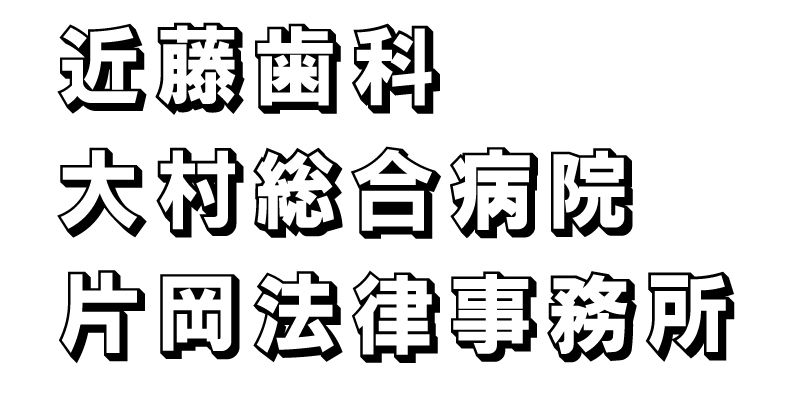
TA Kaku Shadow Font Free Download is a bold, dynamic display typeface designed with dramatic shadows and a striking geometric structure. With its strong lines, shadow effects, and futuristic feel, TA Kaku Shadow is perfect for posters, headlines, logo designs, and branding that requires attention-grabbing typography.
This font is designed to stand out, offering depth and dimension to your designs. Its bold shapes and shadow play make it ideal for projects that need a strong visual presence—whether you're designing for entertainment, tech, or creative branding.